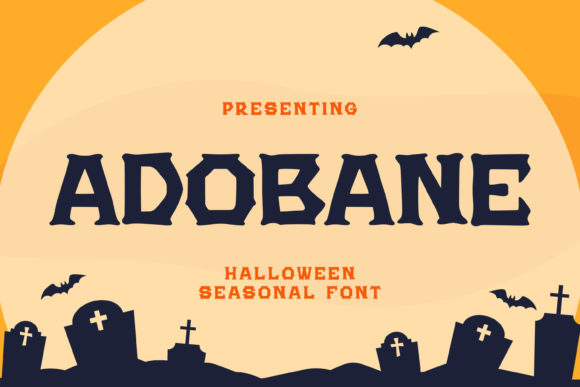
Feast your eyes on Adobane, a spine-tingling display font that will cast a spell on your Halloween designs. Each letter oozes with a thick, spooky aura, making it the perfect choice for sending goosebumps down your audience's spines. Unleash your creativity and let Adobane weave its magic into invitations, posters, or any hauntingly delightful project you can dream up.
Adobane is more than just a font; it's a gateway to the world of the macabre. Its eerie charm will add an unforgettable touch to your Halloween creations, leaving a lasting impression that will linger long after the last trick-or-treater has departed.
With Adobane, the possibilities are endless. It's the perfect choice for creating spine-chilling invitations that will set the tone for a night of thrills and chills. Craft eerie posters that will beckon passersby with their haunting allure. Embellish your Halloween-themed merchandise with Adobane, giving it a touch of spooky sophistication that will turn heads.
So, if you're ready to add a touch of the supernatural to your Halloween designs, reach for Adobane and let it cast its spellbinding charm. With its thick, spooky letters, Adobane will transform your creations into haunting masterpieces that will make your Halloween truly unforgettable.